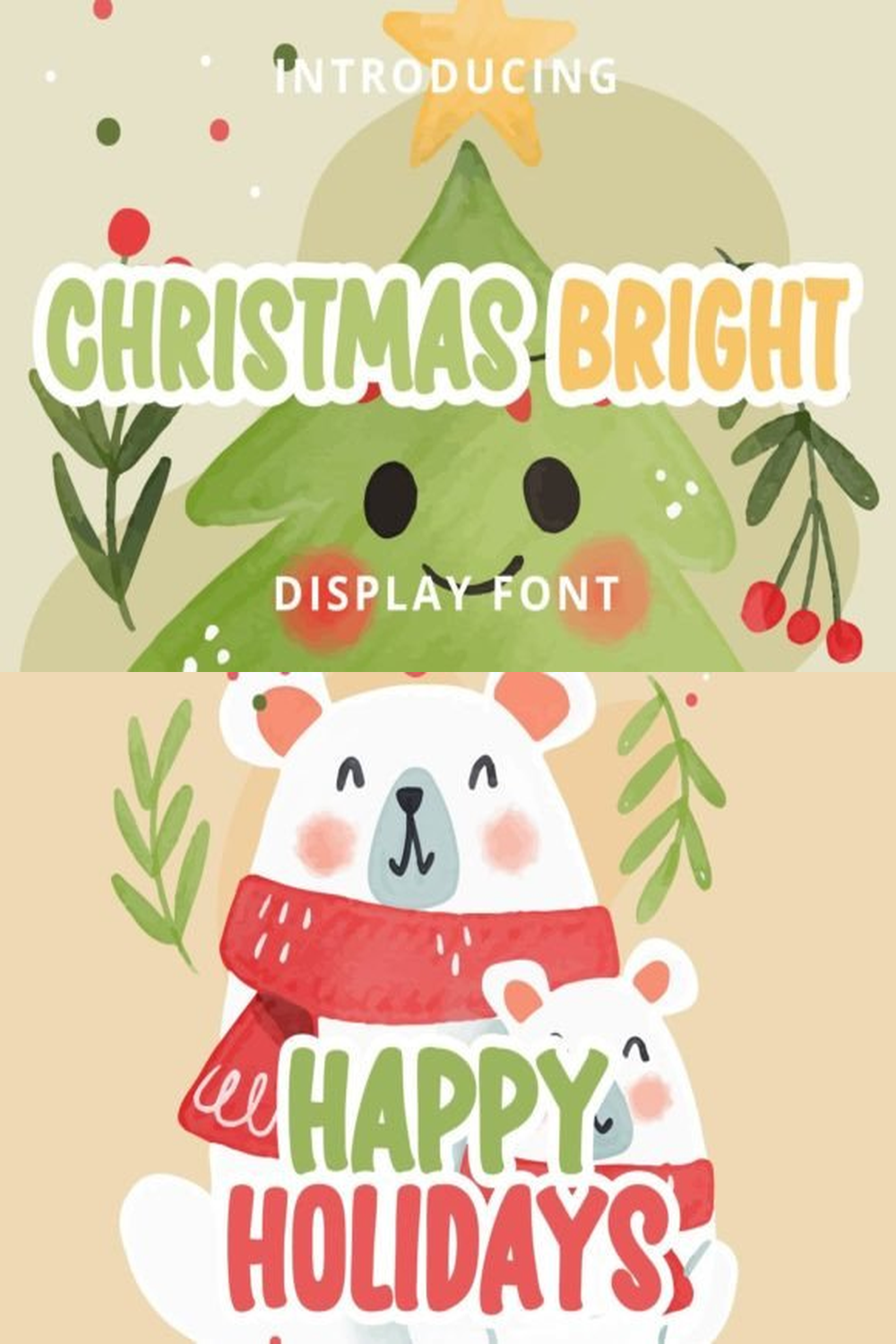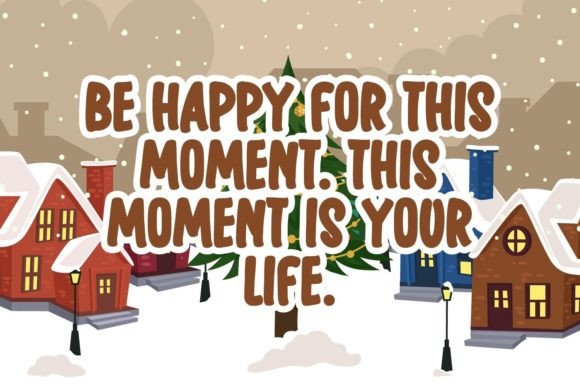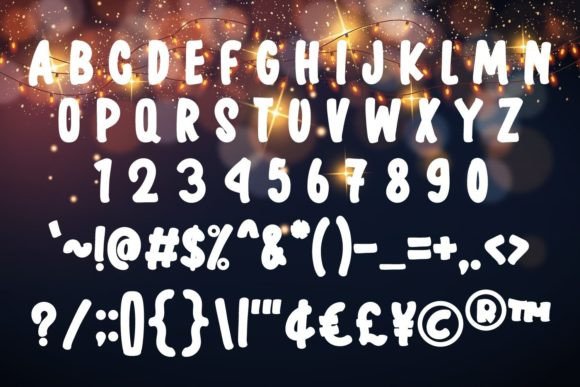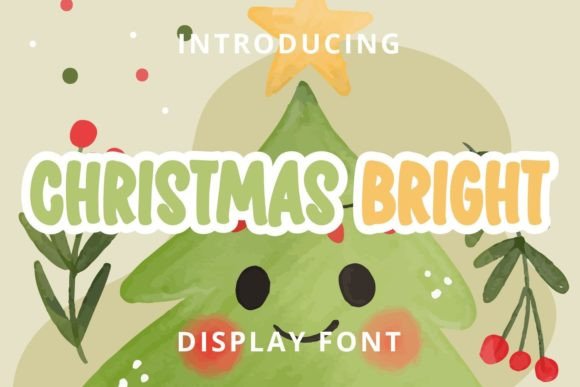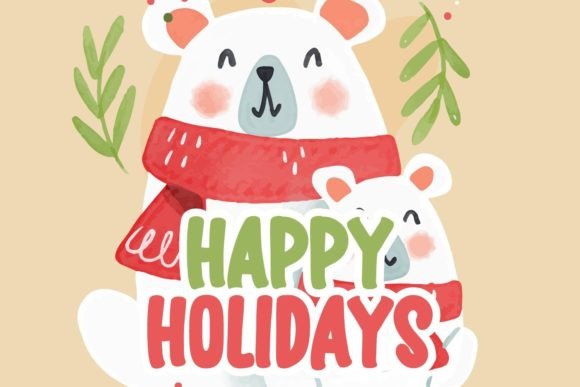
Christmas Bright Font: A Cute Display Font for Holiday Crafts & DIY
About the Christmas Bright Font
The Christmas Bright Font is here to transform your projects with its distinctive character and style. Christmas Bright is a brilliant, fun, and cute display font. This font is suitable for use in any topic that makes them stand out. It is perfect for children-themed designs, especially when combined with bright colors.
Christmas Bright Font Usage Examples